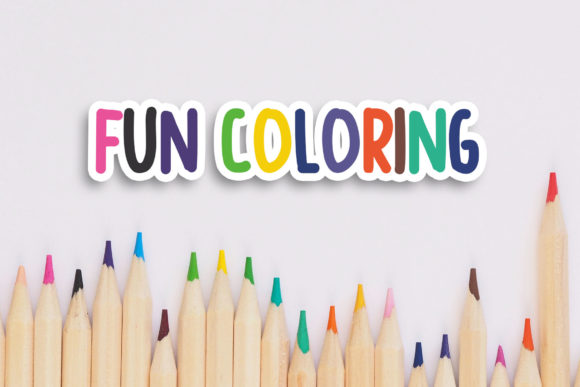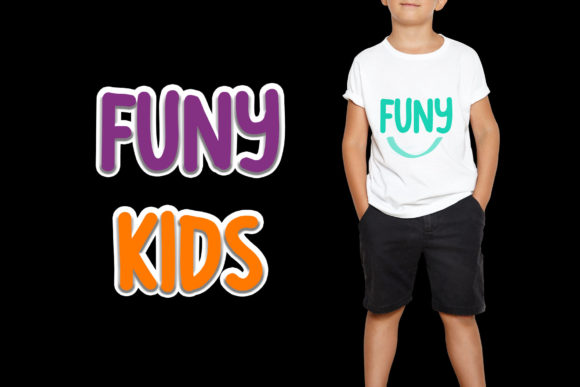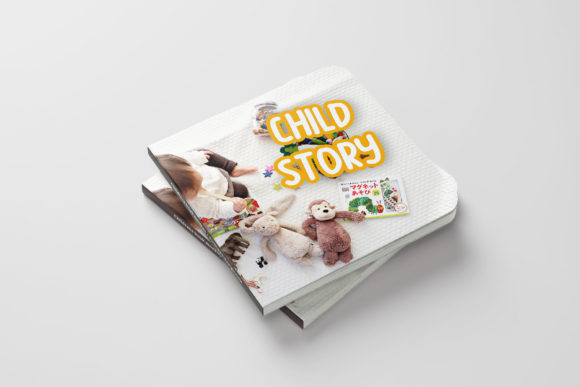
Introduction to Littleshen Font
Litleshen is a cute sans-serif typeface that has a warm and friendly feel – perfect for fun, relaxed designs.
Key Features of Littleshen Font